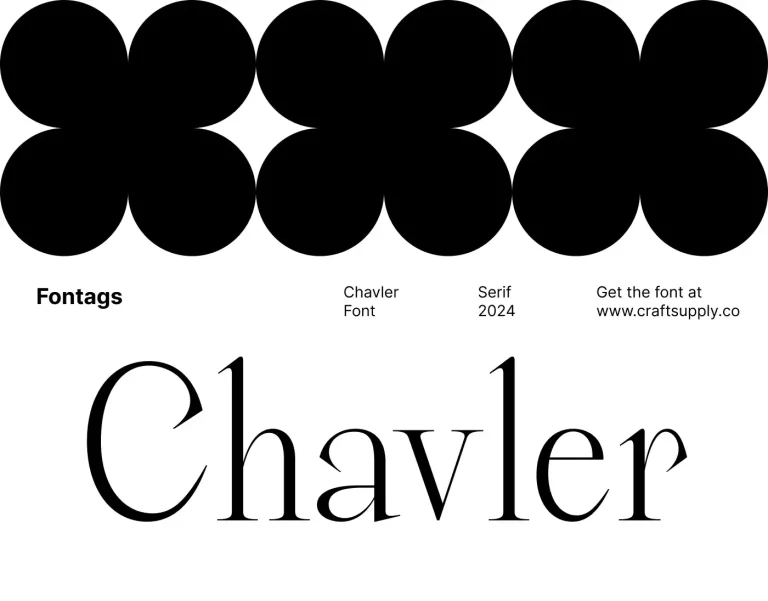
Chavler
Chavler is a modern serif typeface with an elegant feel, perfect for professional use. Its clean lines and classic proportions give it a timeless appeal, making it suitable for a wide range of design applications. With its versatile design, Chavler Typeface is…
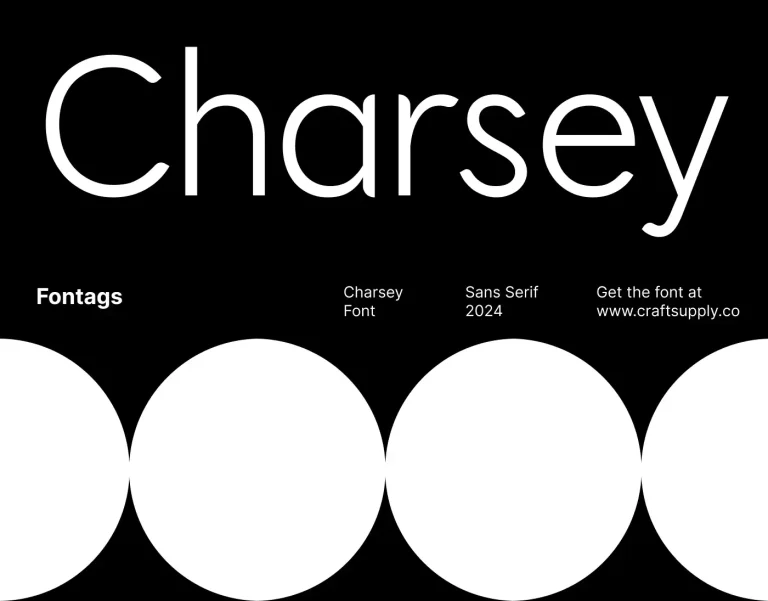
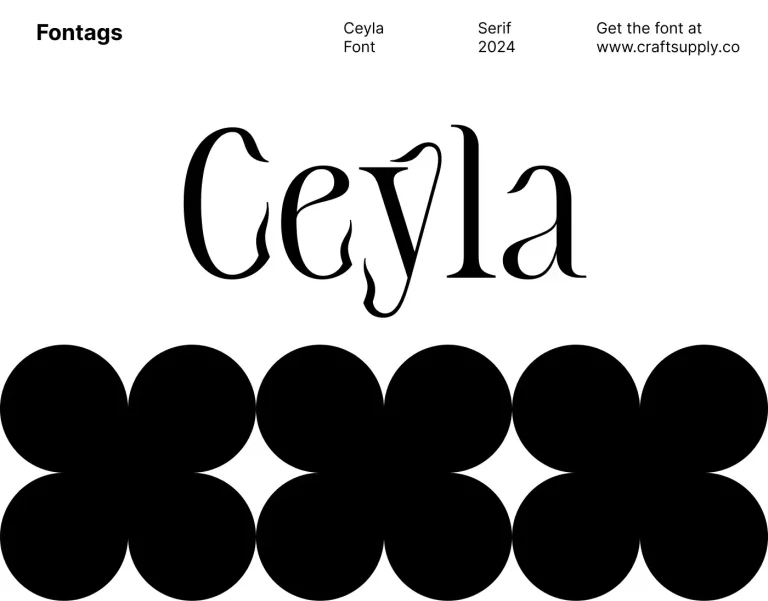Charsey
Charsey is a modern sans-serif font suitable for professional use, such as corporate logos and promotional materials. Its clean and minimalistic design conveys a sense of modernity and professionalism, making it ideal for projects that require a sleek and contemporary aesthetic.
Ceyla
Ceyla is a modern font that combines serif and display styles with an Art Nouveau flair, exuding elegance in every design. Its intricate details and graceful curves pay homage to the Art Nouveau movement, offering a unique and stylish option for designers looking to…
Calben
Calben is a modern serif font with an elegant style, perfect for design projects that prioritize a professional, luxurious, and elegant look. Its sleek lines and sophisticated details make it ideal for creating a refined and upscale appearance in various design applications.
Vellany
Vellany – Serif Typeface is a modern serif font that adds an elegant and contemporary touch to interior design. Its sleek lines and classic serif details make it ideal for various interior design styles, especially modern classic or minimalist themes.
Lovnie
Lovnie – Art Deco Font is a modern sans-serif font with an Art Deco style that adds an elegant touch to every design. Its sleek lines and geometric shapes pay homage to the glamour and sophistication of the Art Deco era, making…
Lexady
Lexady is a display font with a tech and futuristic style, suitable for various modern and future-oriented designs, particularly for technology, automotive, modern architecture, and related designs. Its sleek lines and contemporary look make it perfect for projects that require a modern…
Bartine
Bartine is a sans serif font with an industrial and futuristic style, suitable for designs emphasizing modernity, technology, and strength. Its clean lines and bold shapes make it ideal for posters for tech or industrial events, corporate logos seeking innovation, and web…
Varena
Varena is a sans serif font that seamlessly blends modern aesthetics with professional functionality. Its clean lines and contemporary design make it a versatile choice for a wide range of design applications, from corporate branding to digital displays.
Varelle
Varelle is a serif font with an Art Nouveau style that exudes both beauty and elegance, perfect for sophisticated designs. Its intricate details and graceful lines create a timeless and refined look, ideal for high-end branding, invitations, and other projects that require…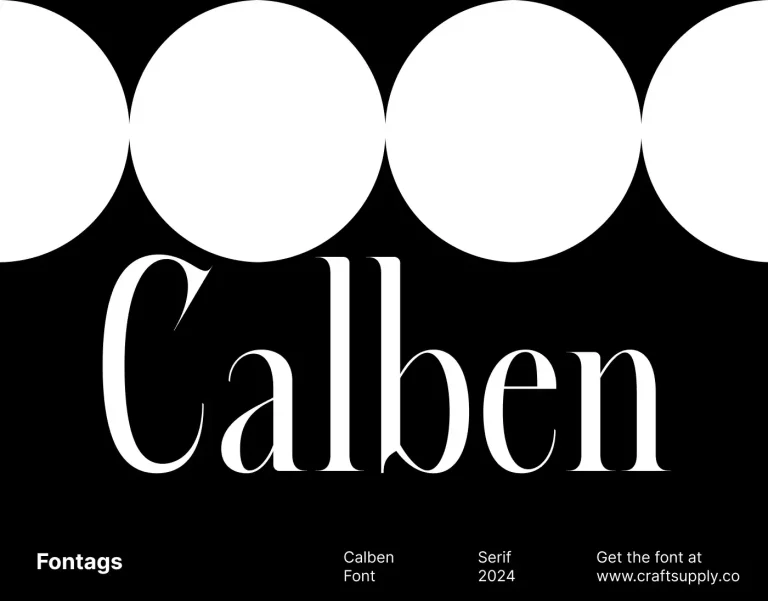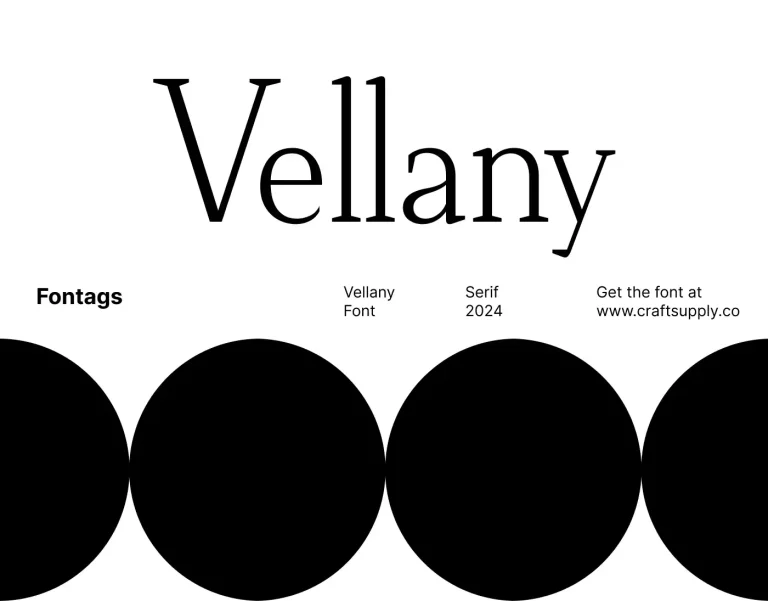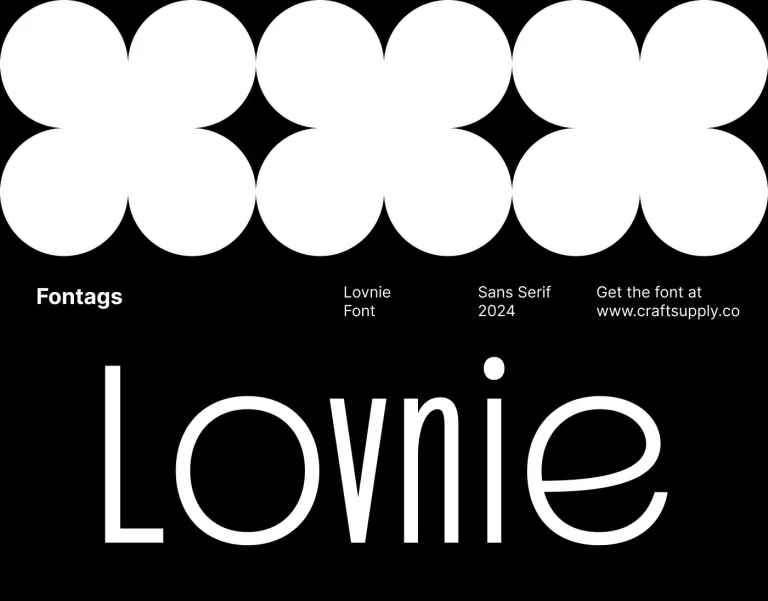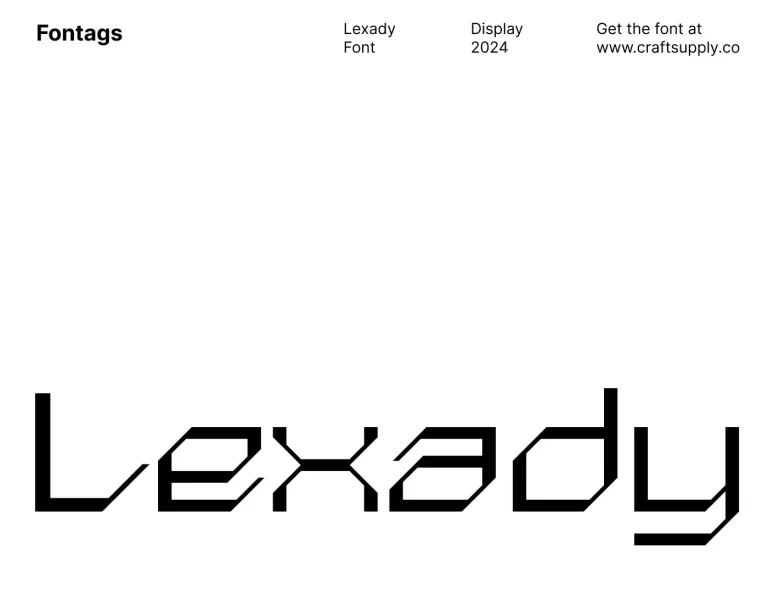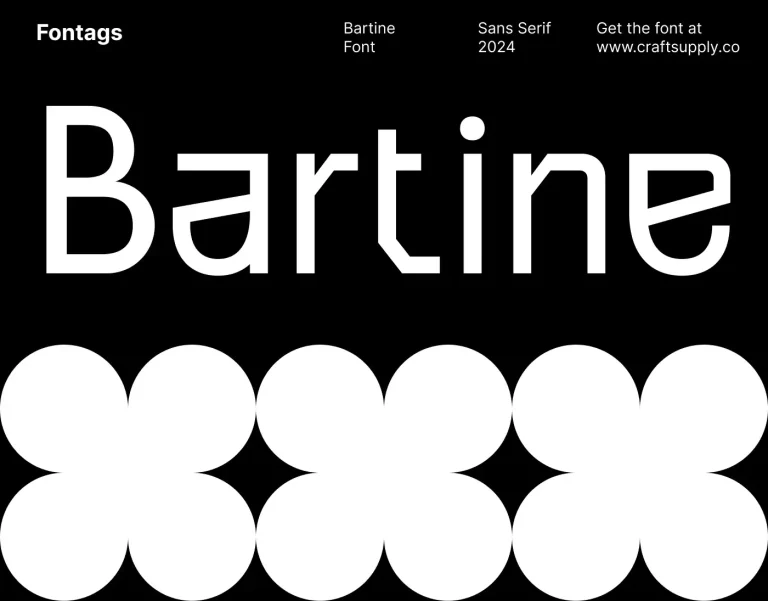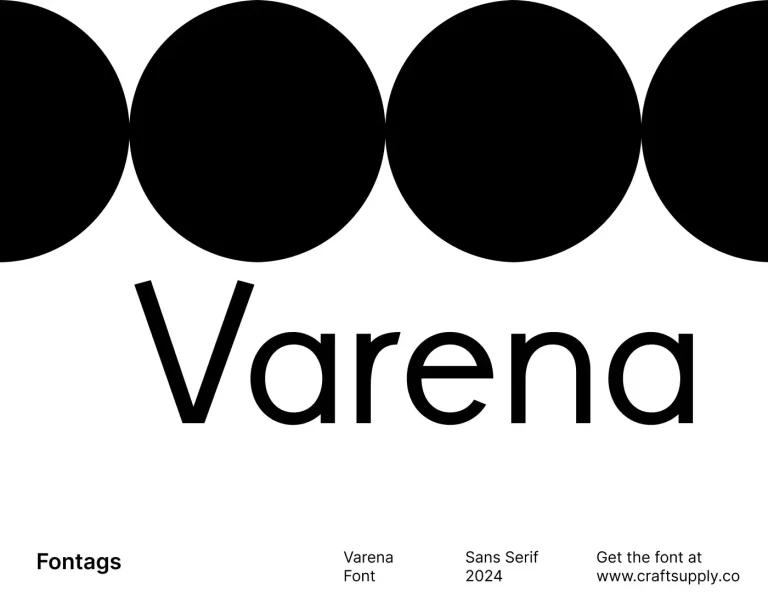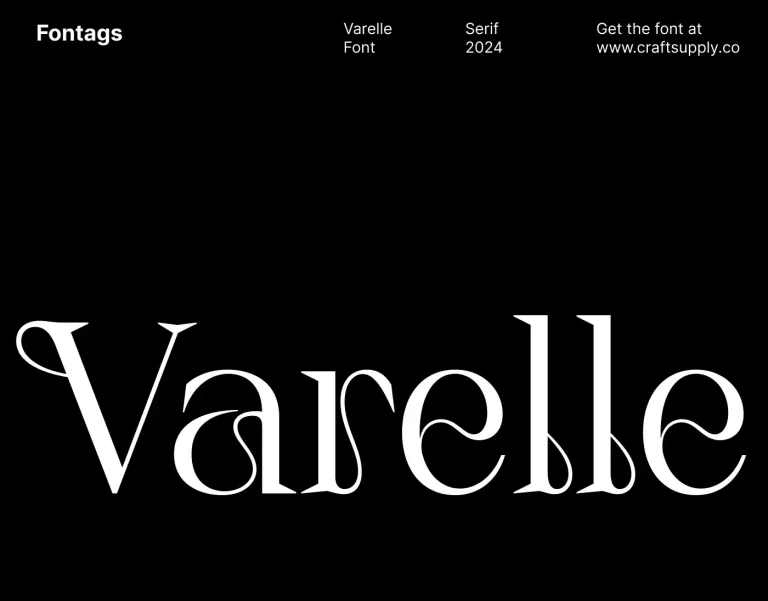